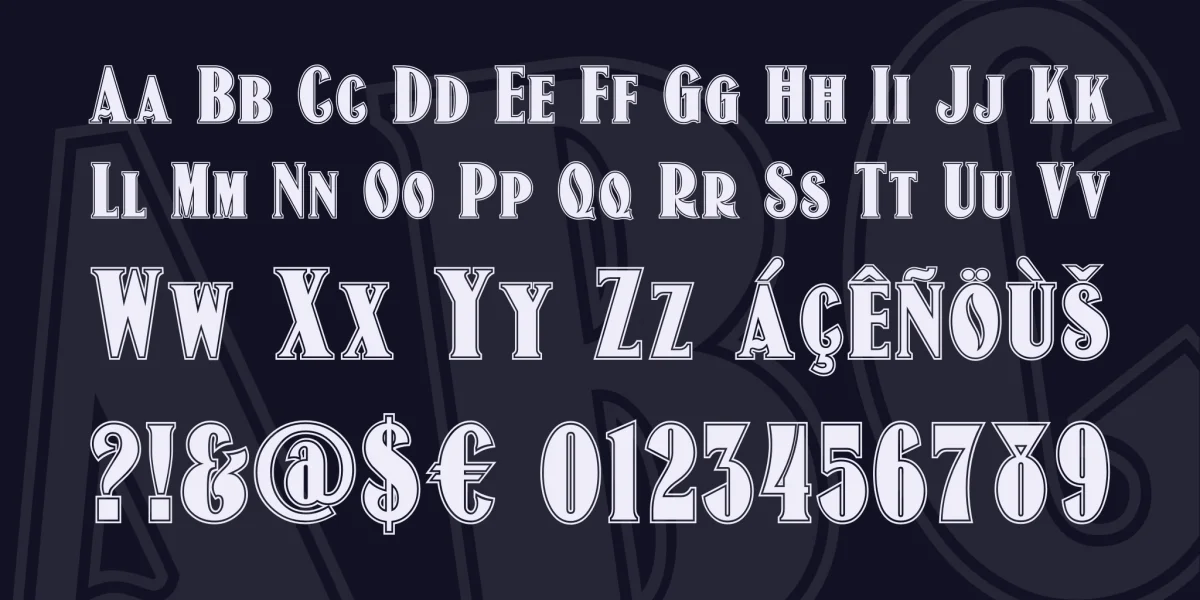
Here’s another reworking of a classic Art Deco font, Binner Poster. My version is somewhat condensed, and adds an outline. Its antique charm is suitable for any occasion, formal or fun. This font is best used in larger point sizes.